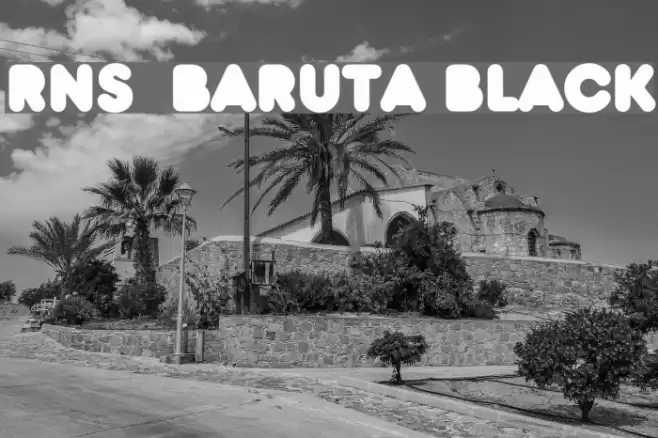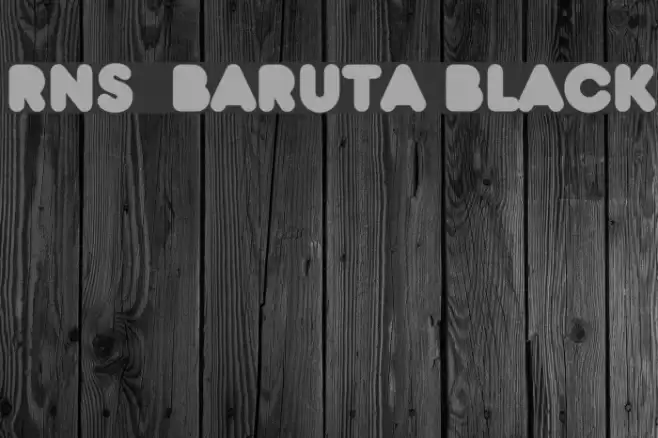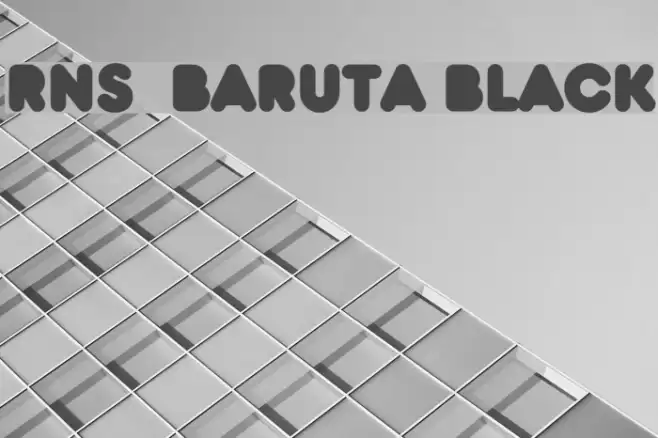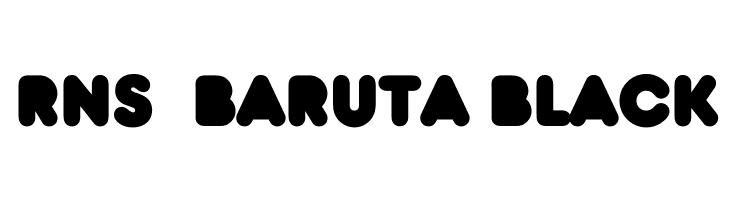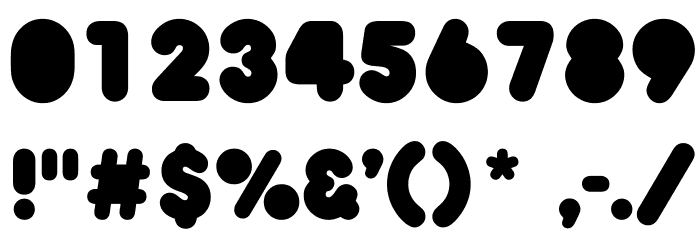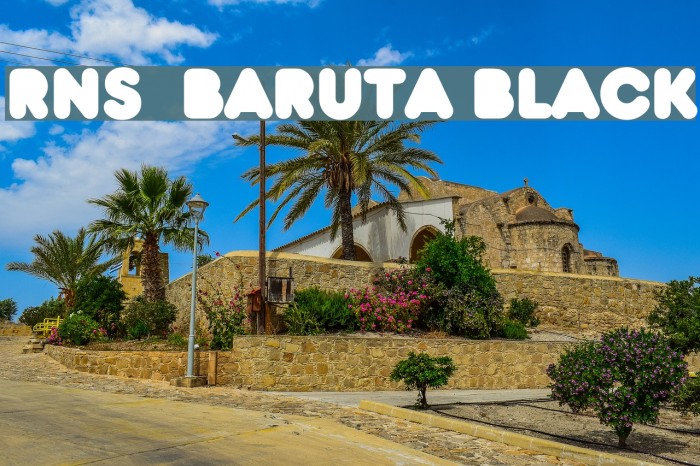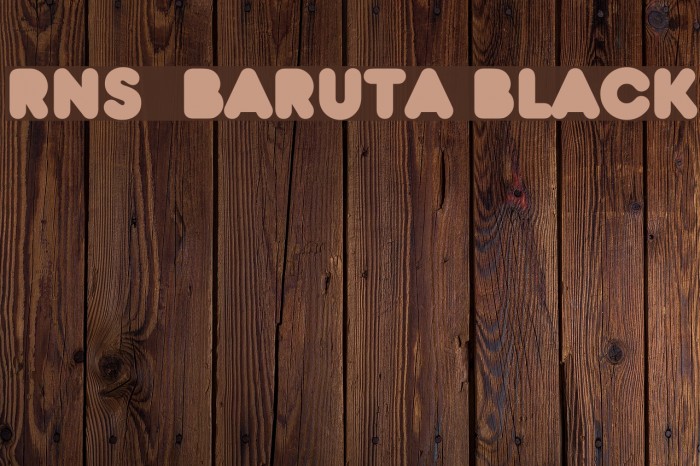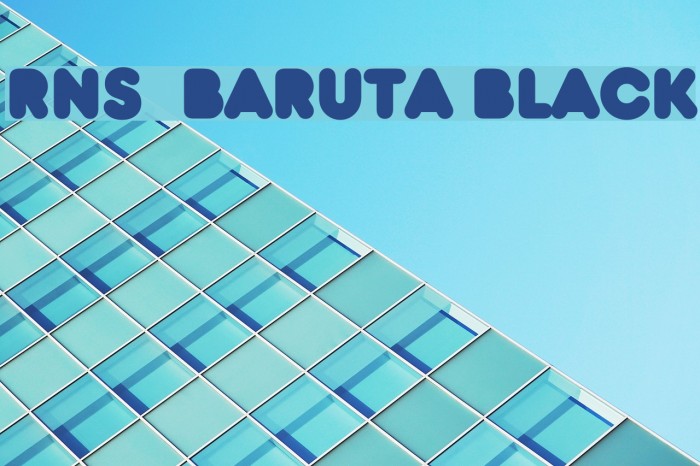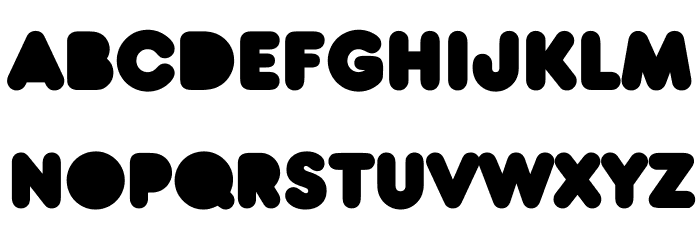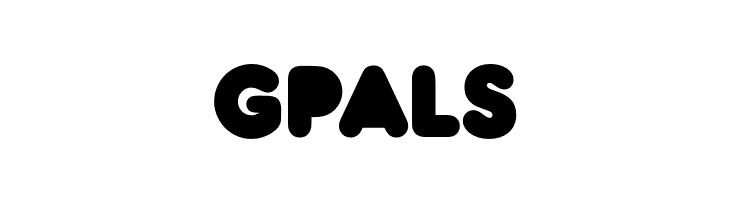
RNS BARUTA BLACK
This font features a bold and rounded style, characterized by its thick, uniform strokes and playful, bubbly appearance. The letters are evenly spaced with a consistent width, creating a cohesive and visually striking look. The design is modern and friendly, making it suitable for a variety of creative applications. The characters are well-defined and maintain a strong presence, ensuring readability while adding a touch of whimsy. The font includes a full set of uppercase and lowercase letters, numbers, and a variety of special characters, all maintaining the same bold and rounded aesthetic.
A bold, rounded font with a playful and modern style.
- Proposed Projects: Ideal for branding, children's books, posters, and playful graphic designs.
- Use Case: Logos, Headlines, Posters